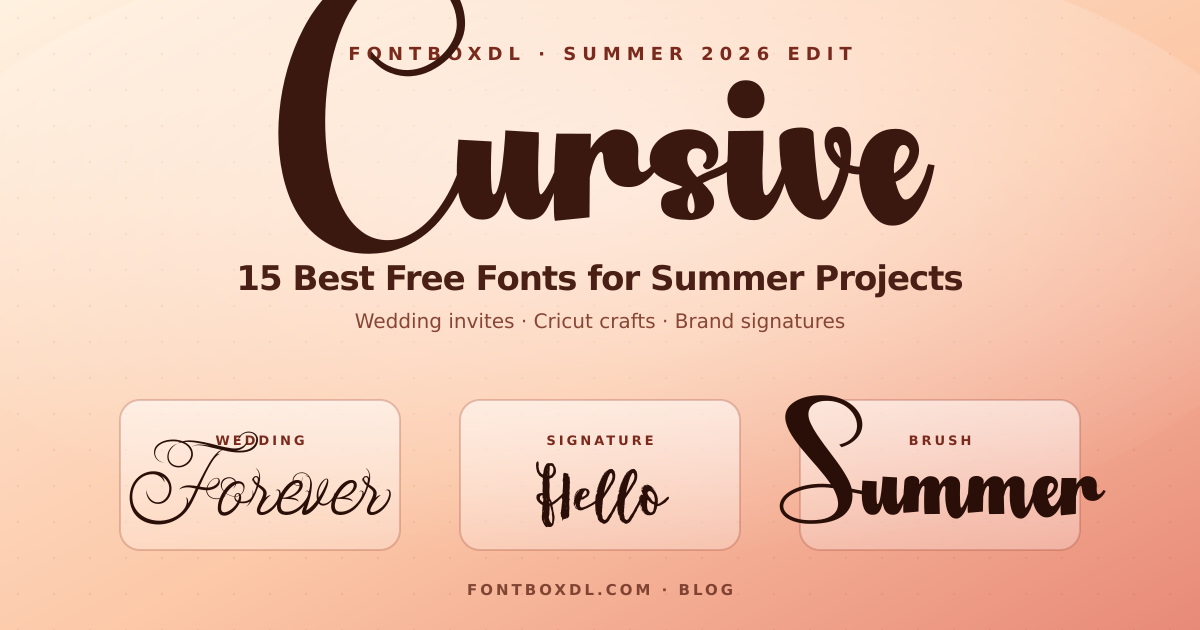
Cursive type is having its biggest moment in years. Designers at Creative Boom recently called italic and flowing scripts "the main character of 2026," and Cricut crafters are flooding Pinterest with cursive wedding invites, summer tote designs, and graduation prints. If you have been searching for the right script to carry your project, you are not alone β "cursive fonts" pulls roughly 27,000 searches every month in the United States, and that number climbs through wedding and graduation season.
This guide is a curated shortlist of 15 free cursive fonts we believe stand out in 2026. Each one is free to download, mostly suitable for personal use (and many for commercial work too β always check the license file), and tested on real projects. We have grouped them loosely into elegant wedding scripts, modern signature fonts, and playful brush styles so you can jump straight to what you need.
Why Cursive Fonts Are Everywhere in Summer 2026
Three trends are colliding this year. First, the broader typography shift toward expression over minimalism β designers want type that carries personality, not just legibility. Second, the handmade revival: in an age of AI-generated everything, hand-lettered curves feel personal and rare. Third, the seasonal pull: spring and early summer have always been peak season for scripts because of weddings, graduation cards, and craft markets. Put together, 2026 is the perfect year to add a great cursive font to your toolkit.
Elegant Wedding & Calligraphy Scripts
These are the fonts to reach for when you need quiet sophistication β wedding invitations, monograms, save-the-dates, and luxury packaging.
1. Marettimo
Designed by The Traveling Fox, Marettimo is one of our most-clicked scripts of the year. Tall ascenders, generous loops, and a relaxed slant make it ideal for headline-sized wedding invitations or boutique branding.
2. Costa Blanca
Costa Blanca by Iradvilyuk feels like a holiday postcard from the Mediterranean β confident copperplate-style strokes with a touch of modern restraint. Pairs beautifully with a clean serif like Cormorant or Playfair.
3. Falcon Script
A classic flowing script from Alan Meeks. Falcon is the kind of font that disappears into the design and lets the message lead β perfect for menu cards, place cards, and program covers.
4. Love and Romance
Exactly what the name promises. Dadiomouse drew this one with extra-loopy descenders and decorative swashes. Best used at large sizes where the curls can breathe.
5. Gorgeously You
A modern calligraphy script from Creativeqube Design. The thin downstrokes and bold upstrokes give it that "expensive boutique" feel without looking dated.
Modern Signature & Handwritten Fonts
Signature fonts have exploded on Etsy and Pinterest. They mimic a confident pen stroke and work brilliantly for personal branding, photographer watermarks, and clean editorial layouts.
6. Inspecture
Dhan Studio's Inspecture nails the "casual but intentional" signature vibe that creator brands love right now. Use it for logos under 60px and it still reads cleanly.
7. Bright Sight
By Giemons. A sharper, slightly bolder signature script. Great when you want personality without losing legibility β newsletter sign-offs, podcast cover art, social headers.
8. Morning Dew
Locomotype's Morning Dew is delicate and airy. The thin weight makes it ideal for overlay text on photographs or as a secondary script paired with a bold sans like Inter or Poppins.
9. Friday Night Vibes
A lively, slightly tilted handwritten script with a touch of bounce. Designed by yh.seaofknowledge. Reaches for energetic moods β summer event posters, Reels covers, casual quote graphics.
10. Handmade
True to its name, Handmade by Salma Studio reads like a real marker pen on paper. Excellent for craft branding, farmers market signage, and anything that wants a personal handmade voice.
Playful Brush & Display Scripts
When subtlety is not the goal β bold, juicy, full-character scripts for posters, packaging, and seasonal merch.
11. Honey
Honey by Ws Studio is a chunky brush script with confident weight. One of the best free fonts to use as a single-word hero on a poster or T-shirt design.
12. Golden Brush
Gleb Guralnyk's Golden Brush has that loose, almost calligraphic pen feel that pairs especially well with watercolor backgrounds and summer market branding.
13. Dancing Pam
Playful, bouncy, and a touch retro. Great for kids' birthday invitations, cupcake packaging, or anything in a beach-and-pastel palette.
14. Westpark Script Duo
JumboDesign's Westpark is a script-and-sans duo, meaning you get a matched cursive plus a clean sans in the same family β extremely useful when you want a coherent two-font system without spending hours pairing.
Final Thoughts
Cursive fonts are the easiest way to add warmth to a 2026 design without spending money or copying an overused template. Start with one or two from this list β Marettimo for elegance, Honey for impact, Inspecture for signature work β and build a tiny personal library you reach for again and again.